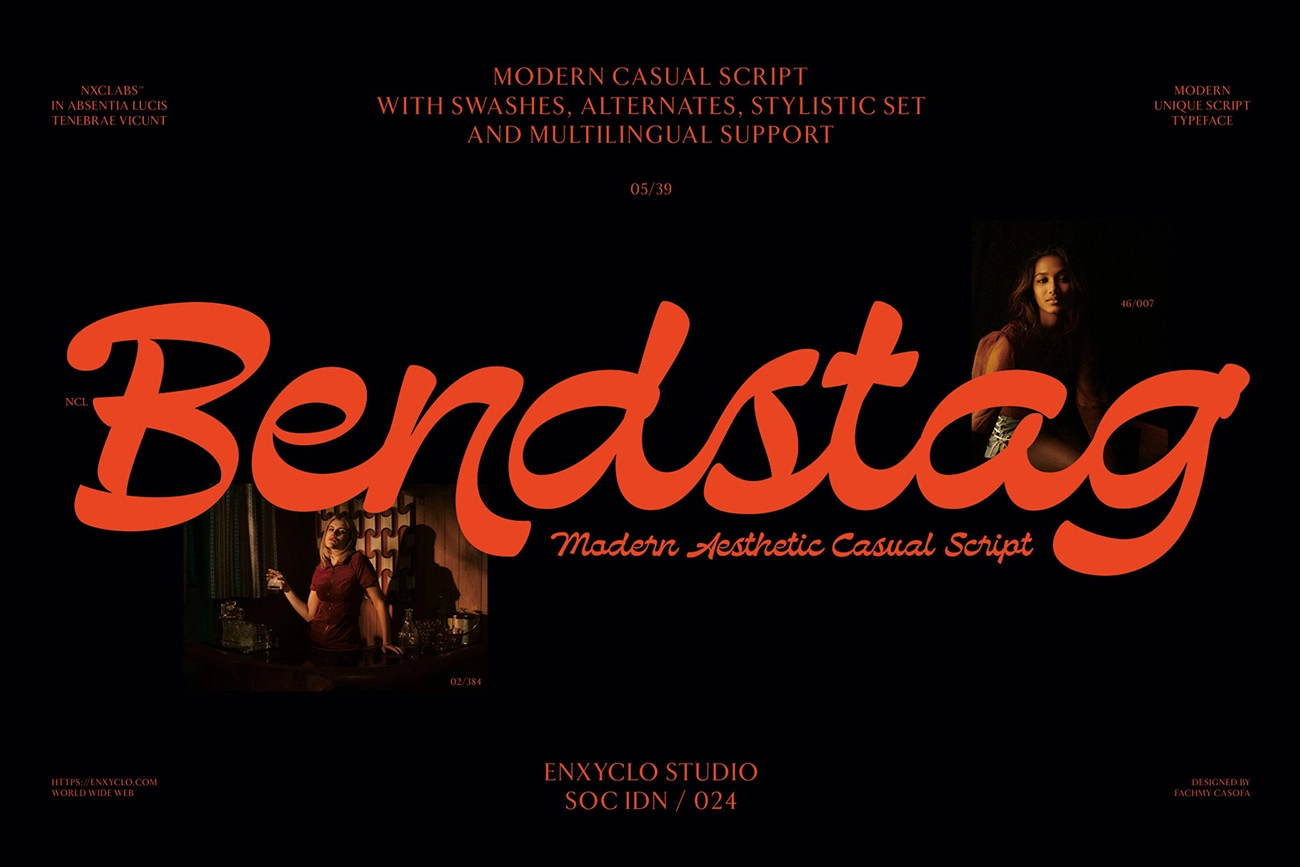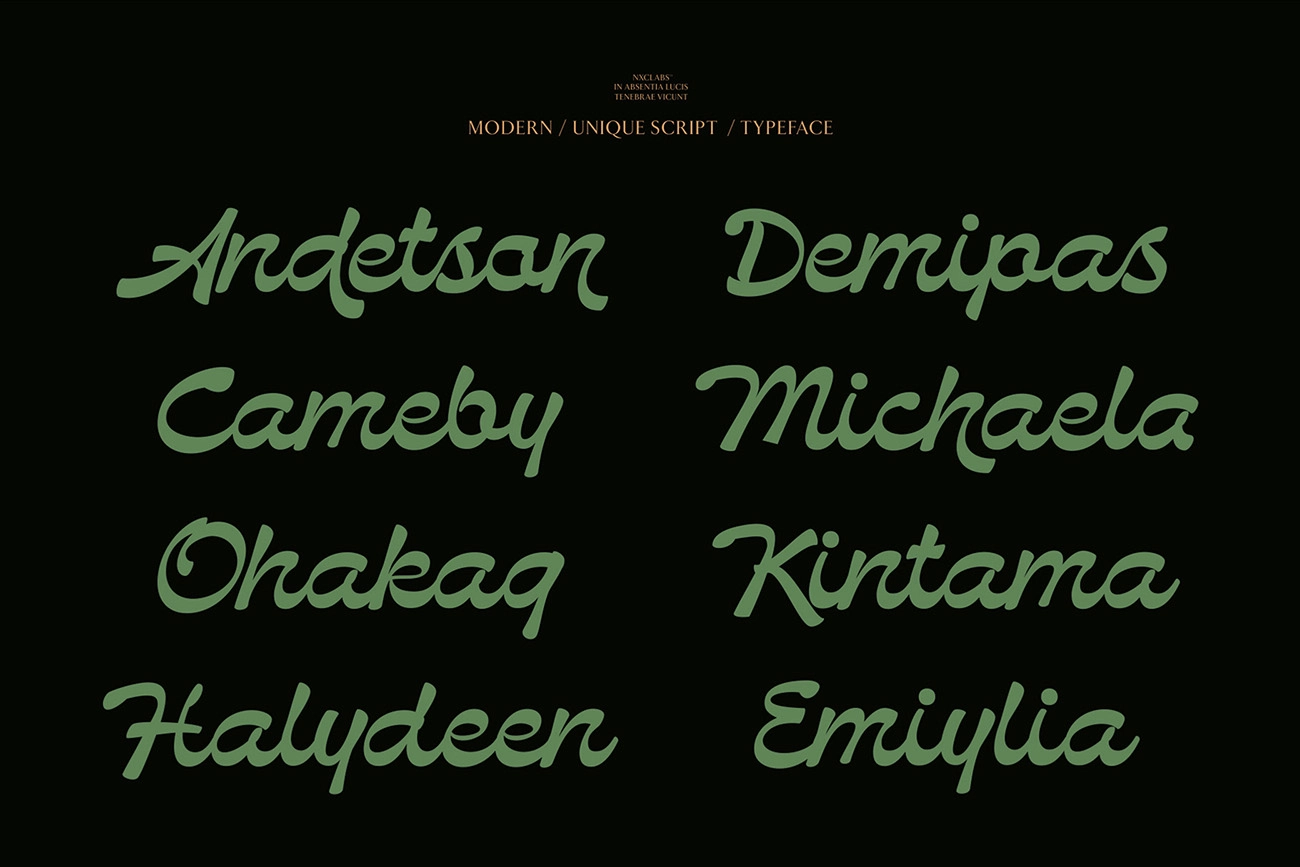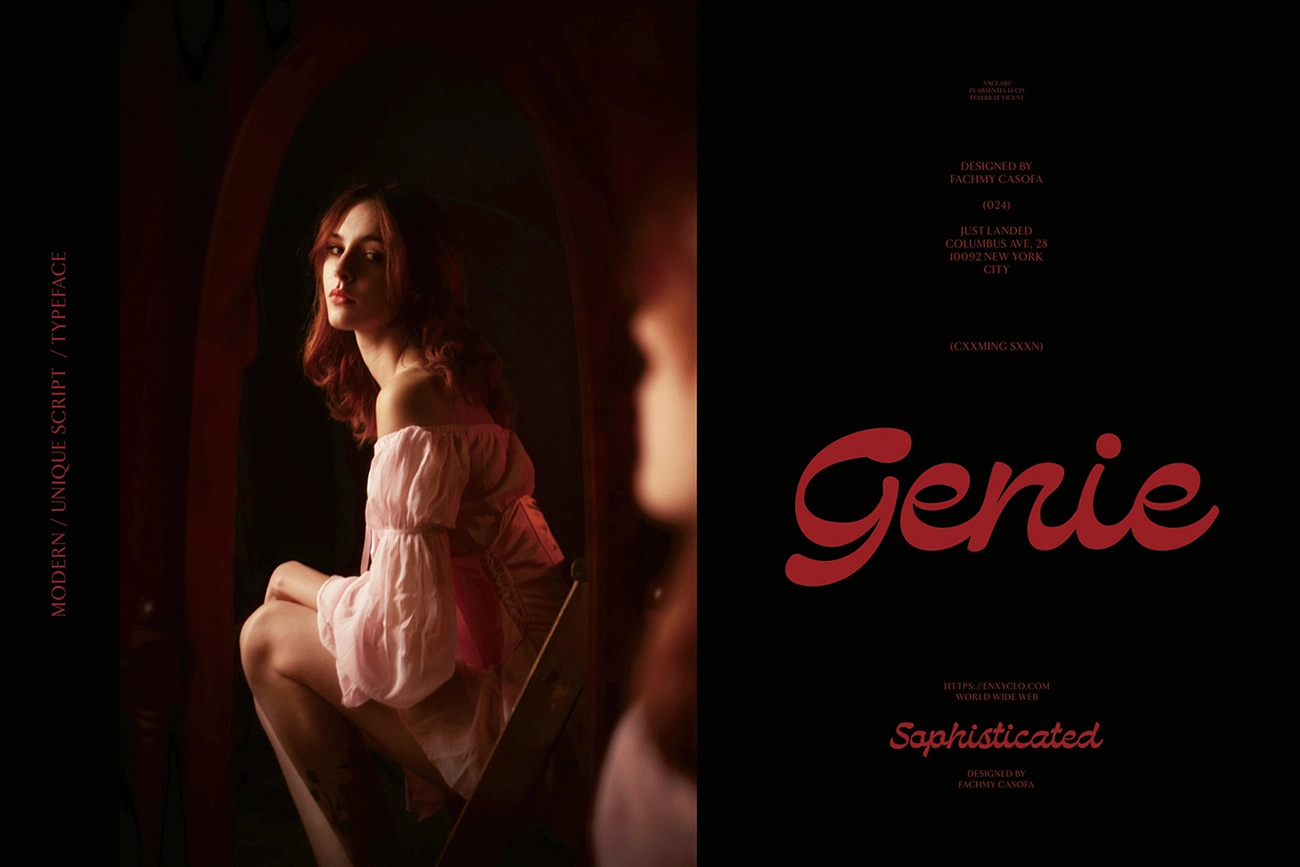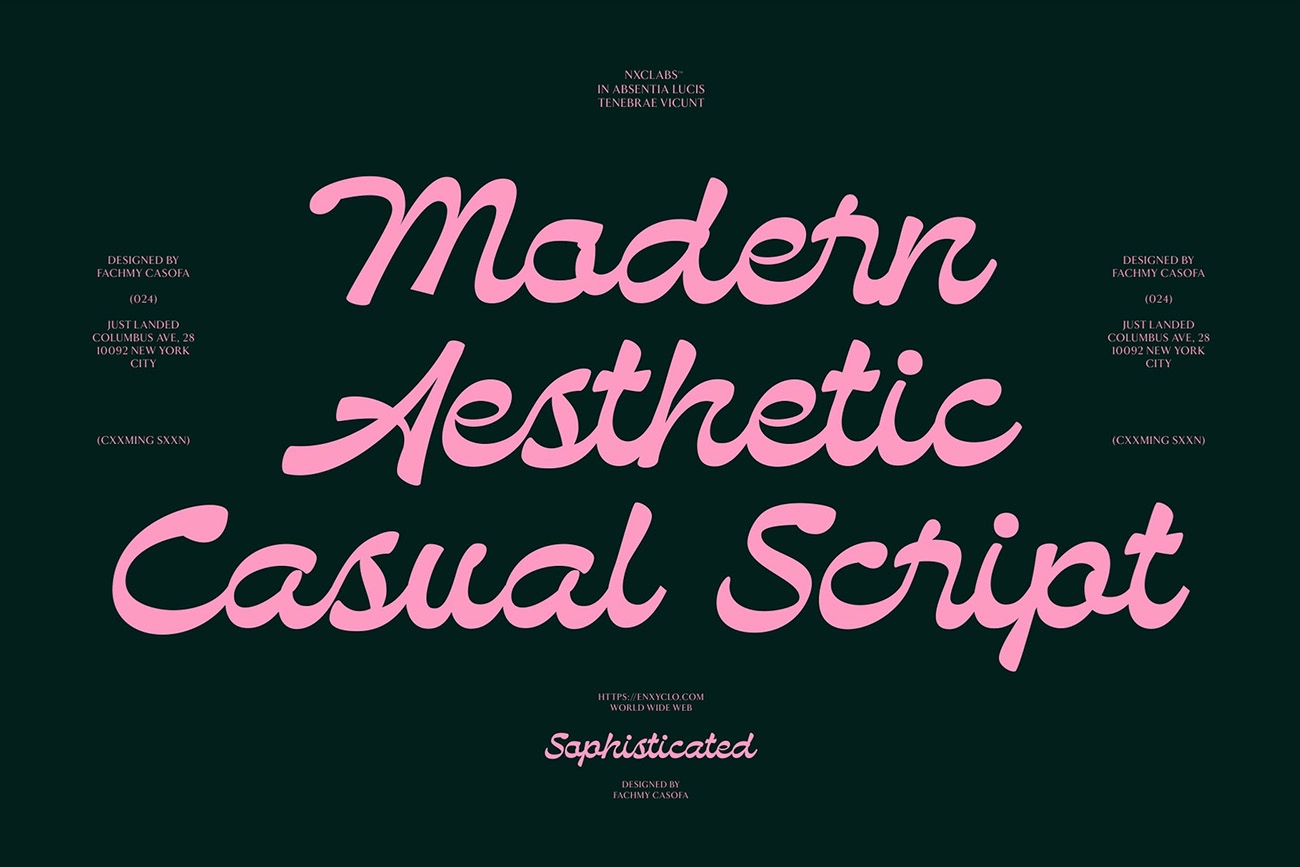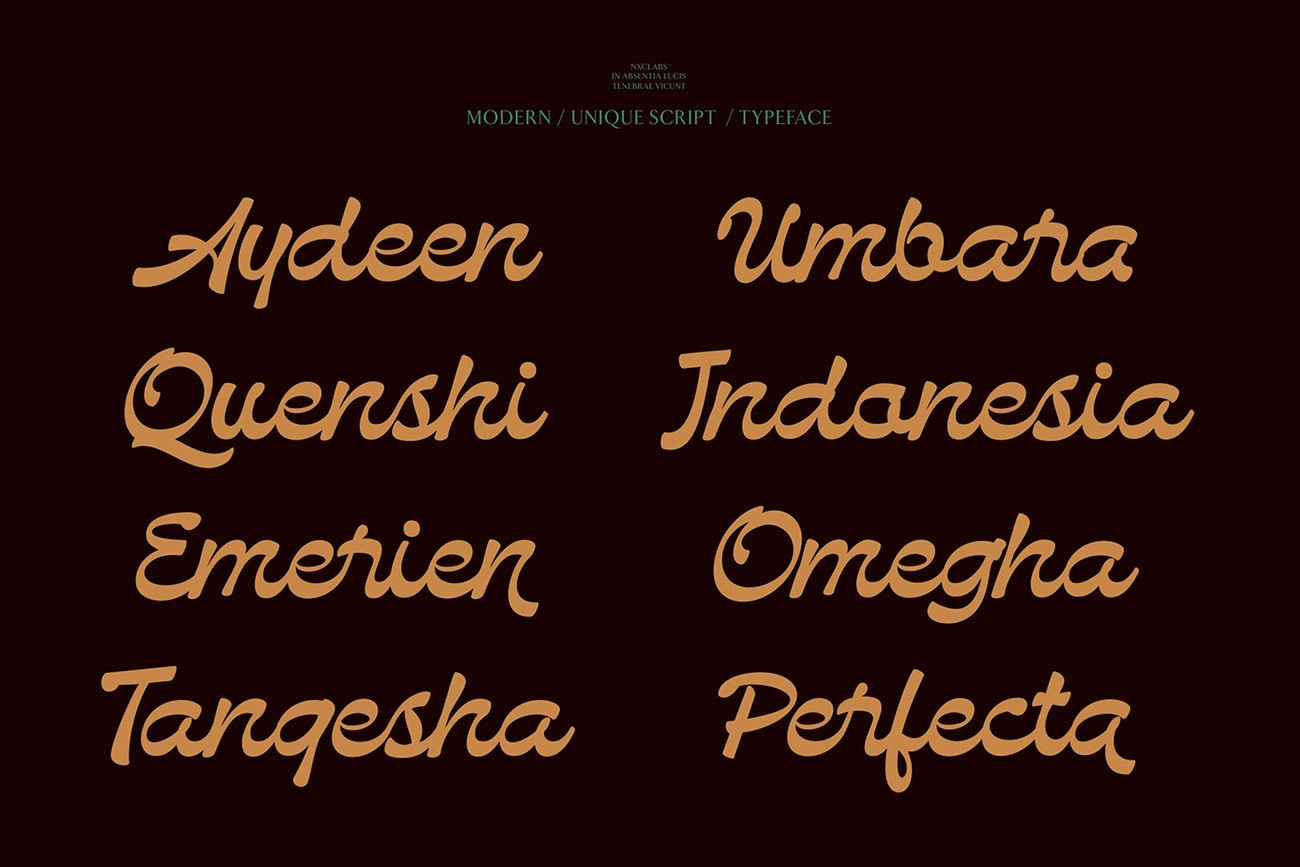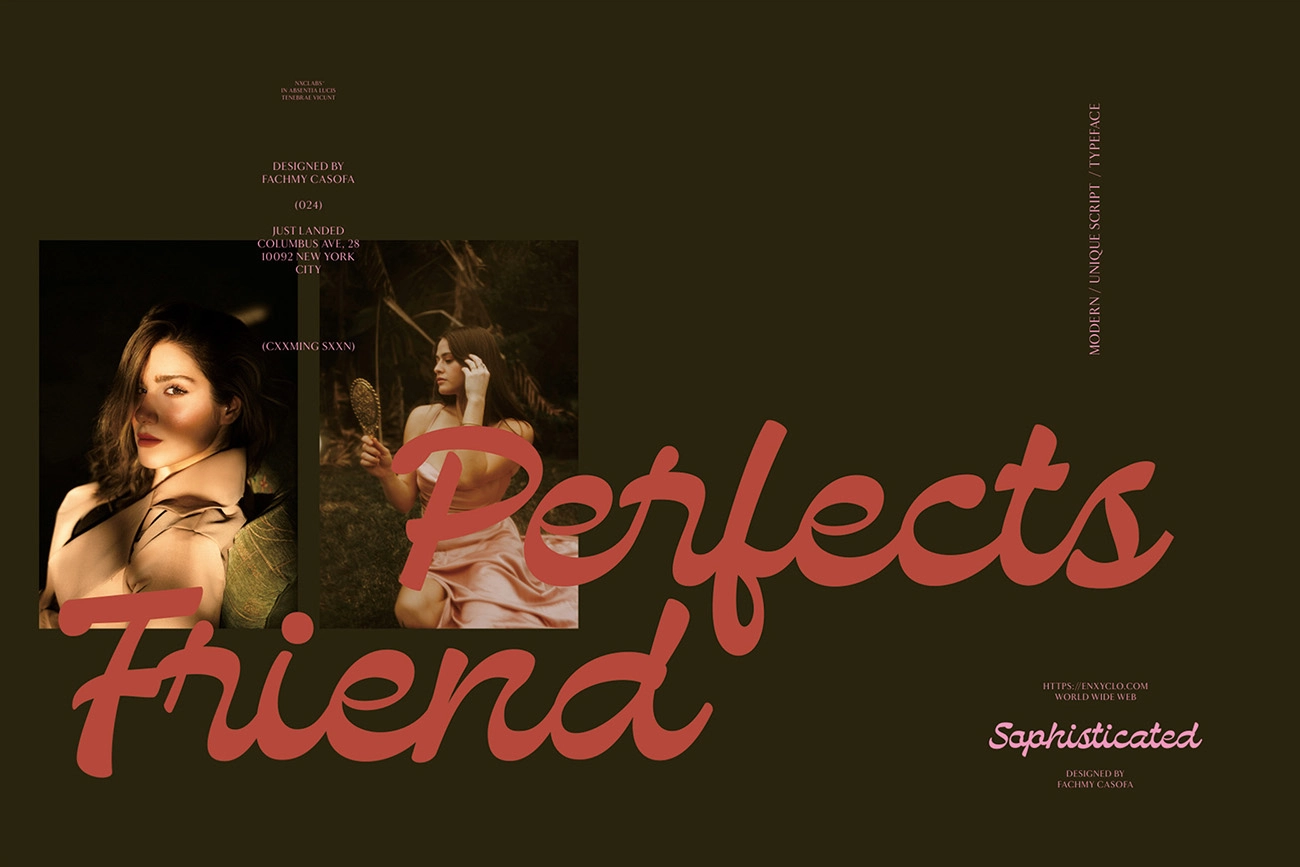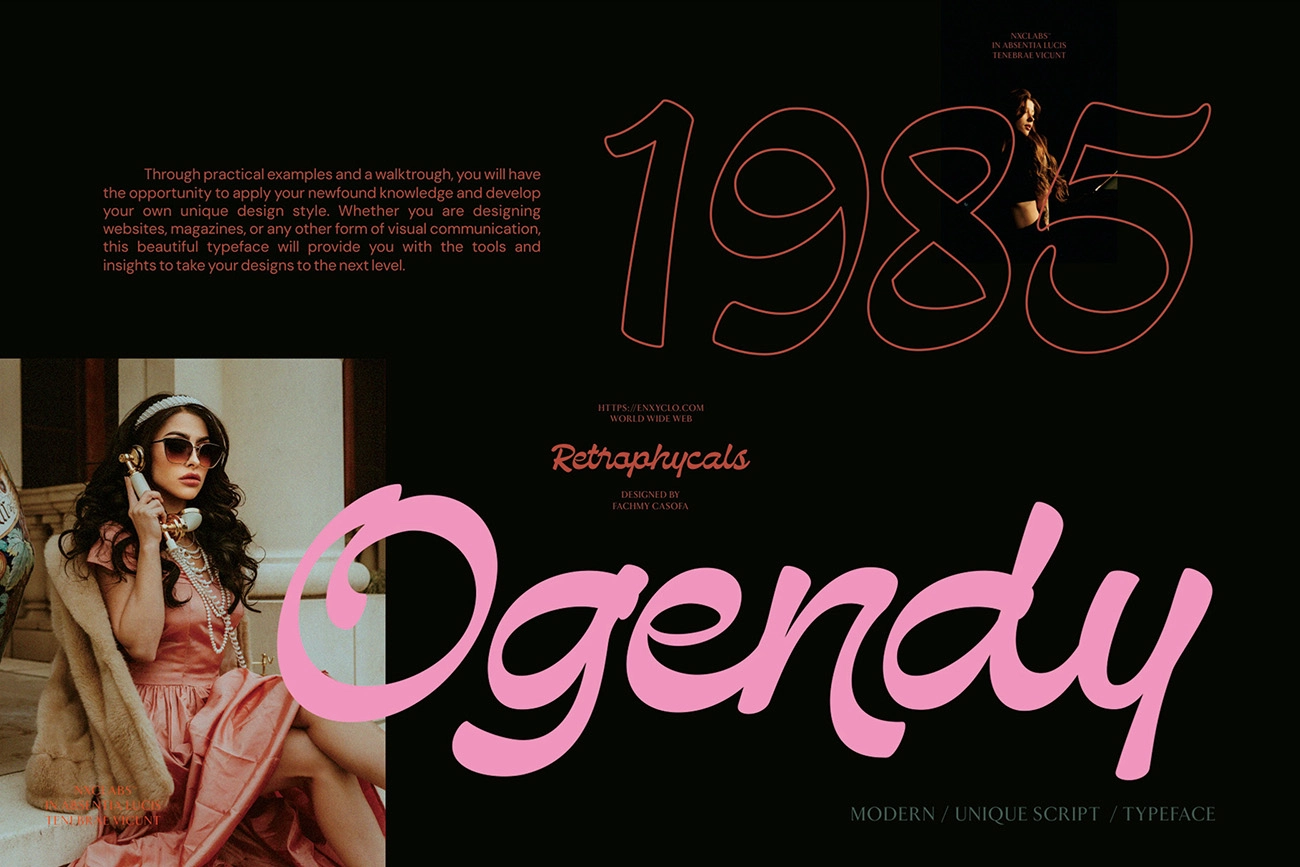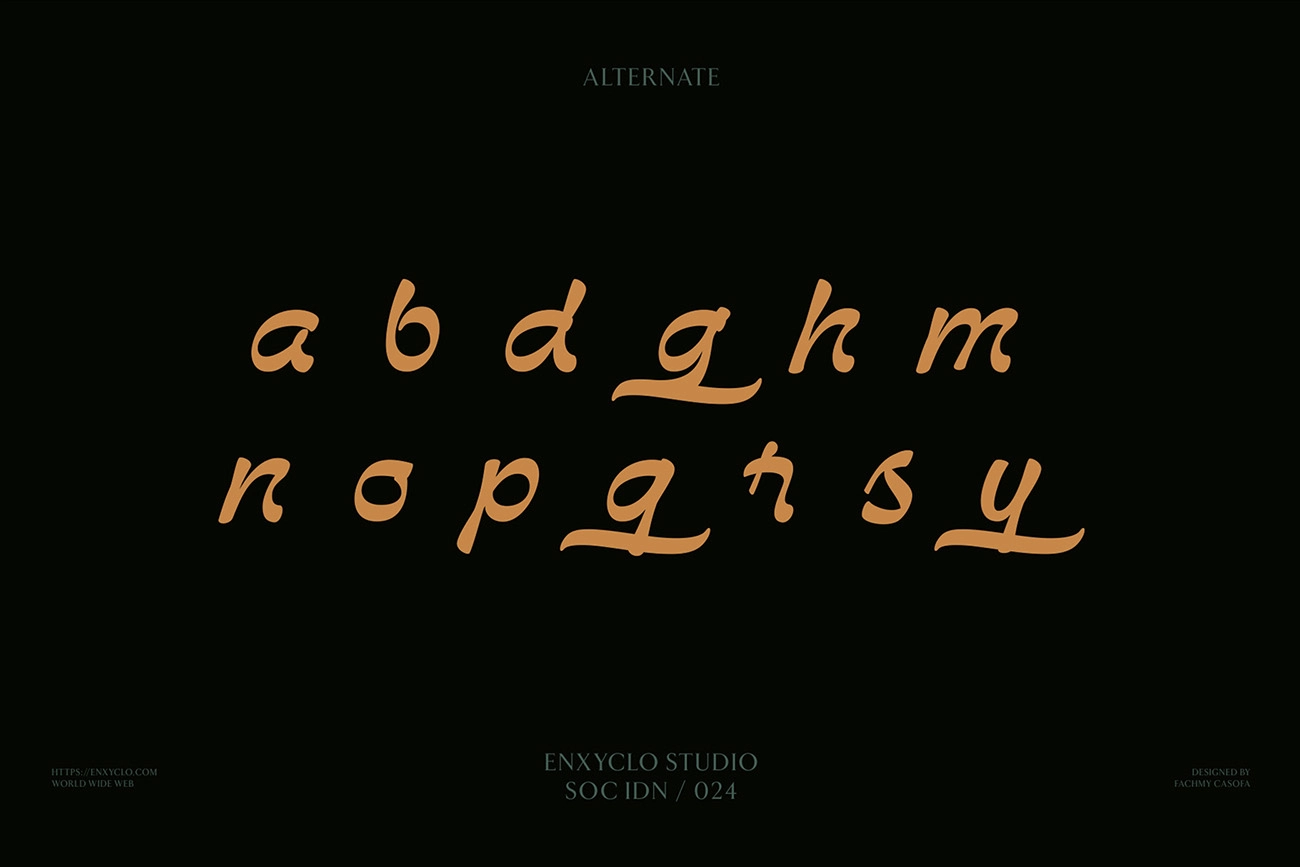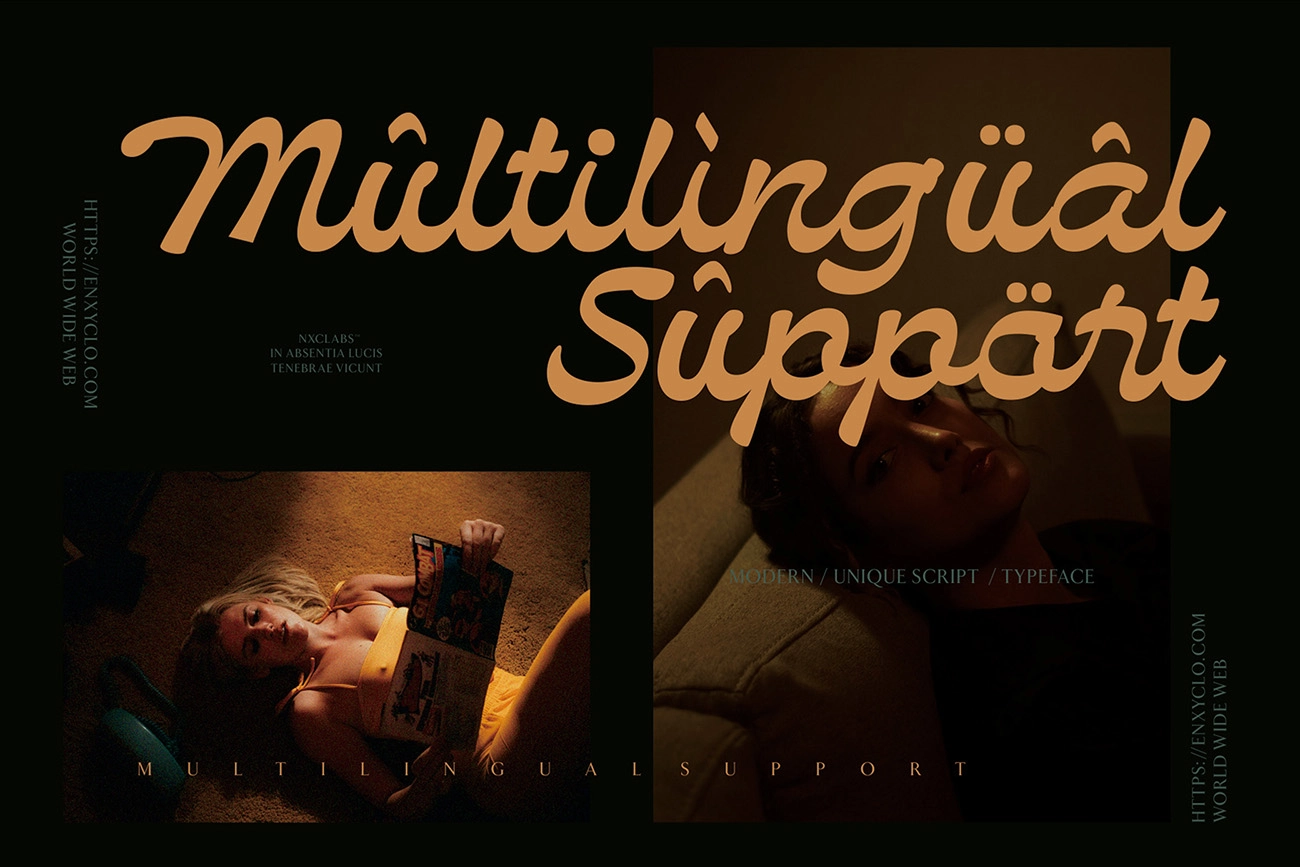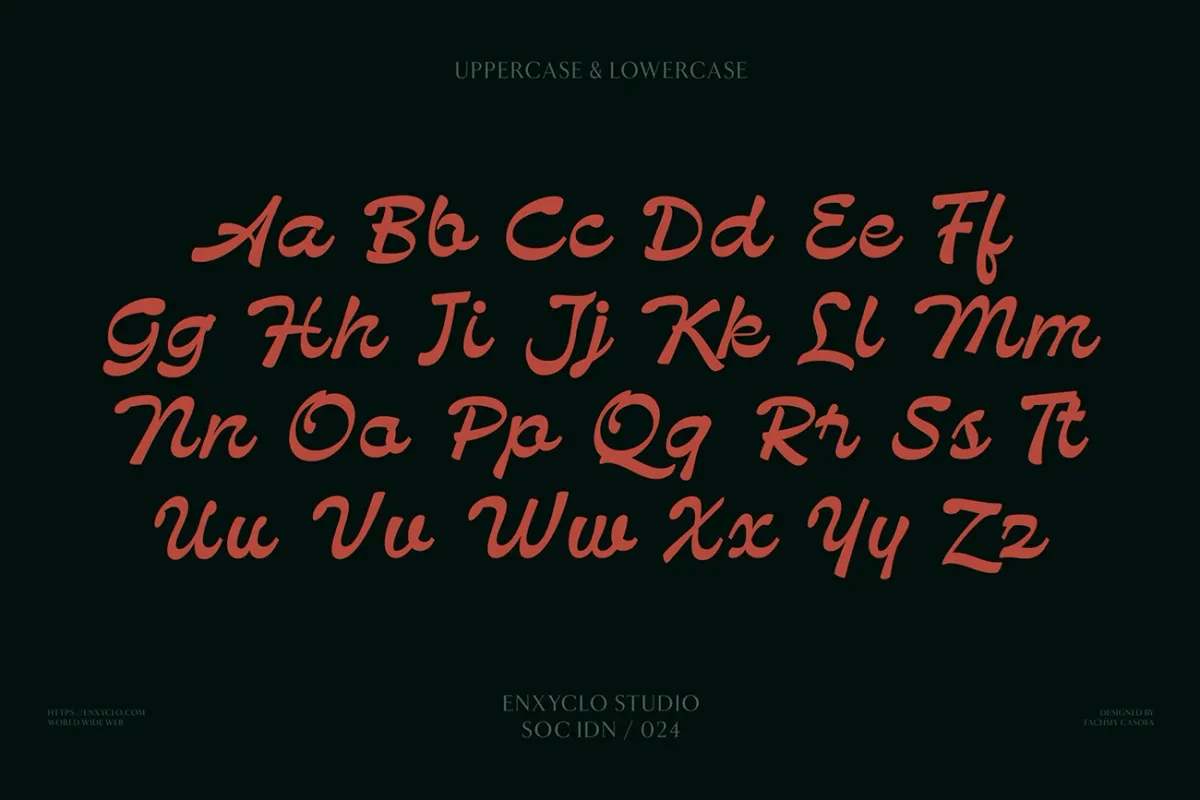
Bendstag - Modern Casual Script Font
Bendstag – Modern Casual Script Font is a stylish handwritten typeface that combines relaxed script movement with a clean modern structure. Designed with smooth curves and natural flow, Bendstag brings an elegant yet casual personality to contemporary typography. The balanced letterforms create a friendly and expressive visual tone that works beautifully for both creative branding and editorial design.
Crafted to perform strongly in headlines while maintaining readability in smaller text, Bendstag is ideal for logos, posters, magazines, digital ads, websites, and modern brand identities. Its alternates and stylistic variations give designers flexibility to create unique typographic compositions that feel both personal and refined.
• 283 Unique Glyphs
• Alternates & Stylistic Set
• Uppercase & Lowercase Characters
• Numerals, Punctuation & Symbols
• Modern Casual Script Style